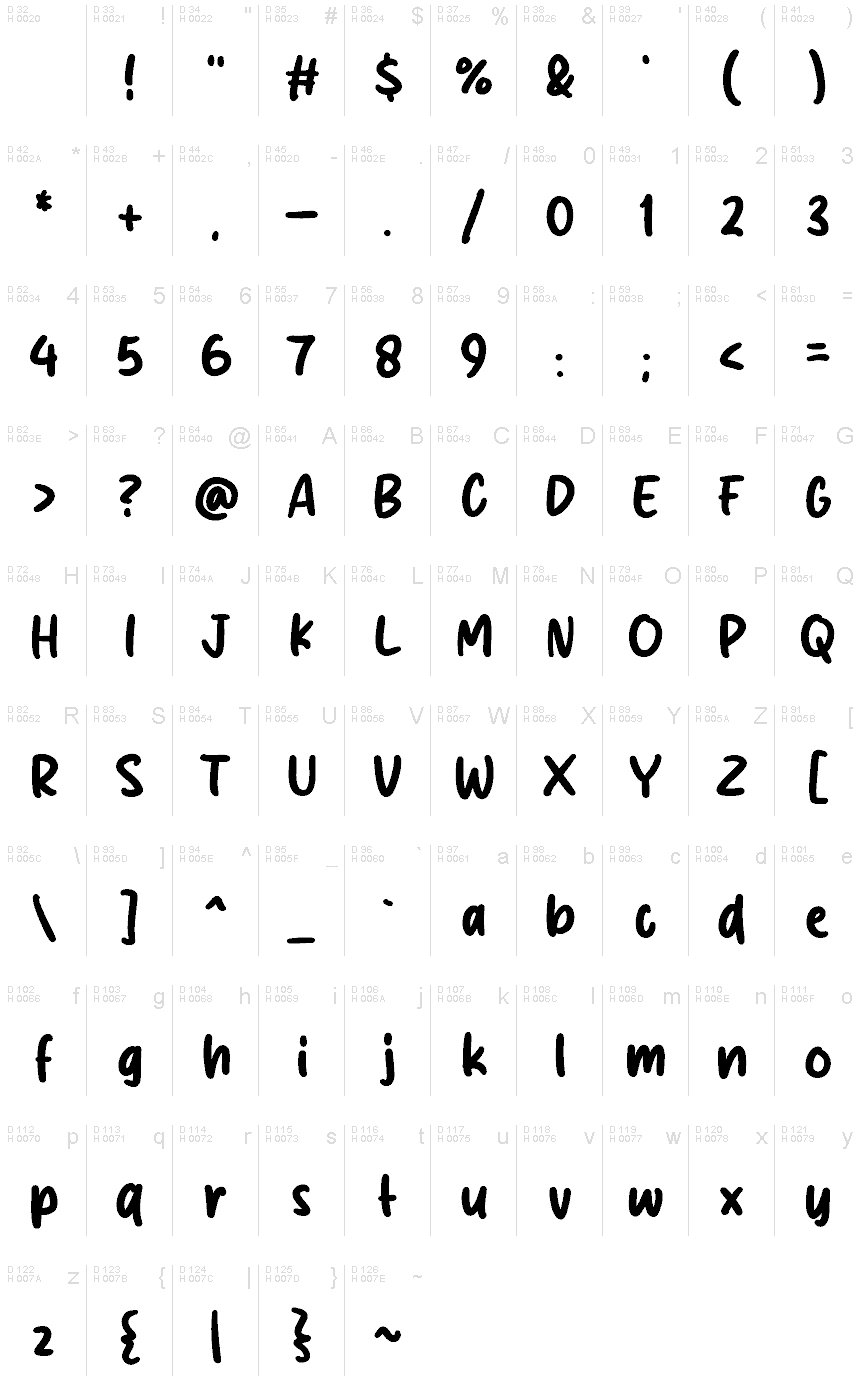
Mujista Script
Mujista Script font by MJType is a free handwritten font that beautifully combines an informal, casual style with an artistic modern appearance. Its distinct features provide a natural friendly atmosphere, perfect for establishing warm connections with readers. The stylish handwritten feel is suitable for any design that requires both uniqueness and authenticity.
This font is designed to enhance various visual products such as ads, websites, customer service projects, motion graphic videos, presentations, printed business items (notebooks, business cards), packages, branding designs (logos), social media posts/stories/bios/tweets/comments/ads etc. Use Mujista Script anywhere you want to communicate your message in a warm way.